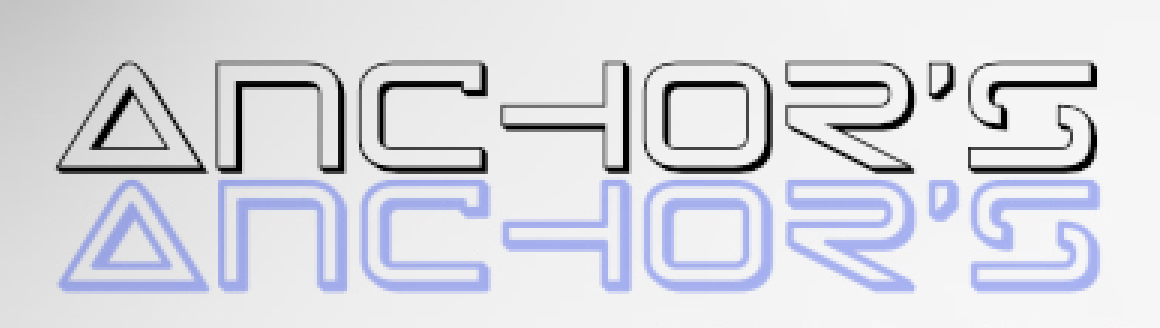
Help Identifying Font
I could use some help identifying a font please.  Someone had made something for me a few months ago.  However, the person no longer does the editing and I need to make some changes.  I cannot find the font that was used in Lightroom.
Would anyone happen to know the name of this font?
Best match I found at- https://www.fontsquirrel.com/matcherator
was-
Have you tried using the Match Font feature within Photoshop?
No I haven't.  I am new to Lightroom and didn't realize that existed.  I won't have access to the computer with Lightroom on it until late next week.  Would you mind checking it for me please?
Best match I found at- https://www.fontsquirrel.com/matcherator
was-
I am trying to find the font in the image attached..  I think it is some type of Art Deco, but cannot find it anywhere..  Please Help..
Nearest I could find was at https://www.myfonts.com/WhatTheFont/
i entered in your font and it looks like
Changeling Neo Inline is the closest